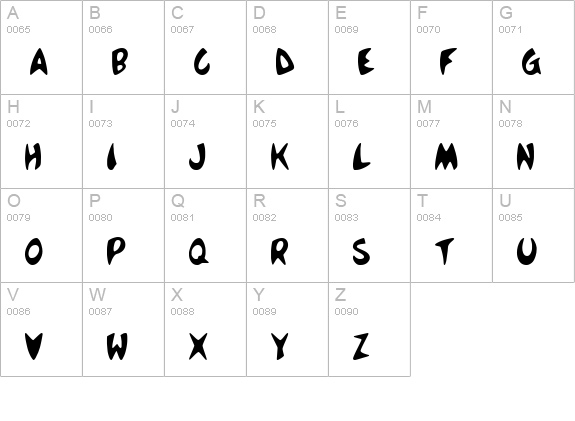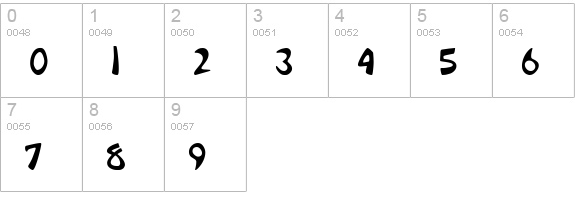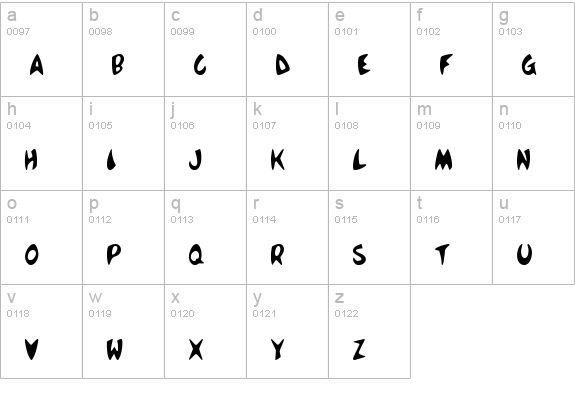
McBoing Boing Font Details
McBoing Boing font is a whimsical and playful typeface that exudes a sense of fun and creativity. Its unique design features bouncy letters with varying sizes and angles, giving it a dynamic and cheerful appearance. The font is perfect for adding a touch of lightheartedness to your designs, whether you're creating greeting cards, posters, or children's book illustrations. What's even better is that McBoing Boing font is available for free download at FontsMarket.com. This means you can easily access this delightful typeface and start using it in your projects right away without any cost. Embrace the charm and energy of McBoing Boing font in your designs and let your creativity soar!